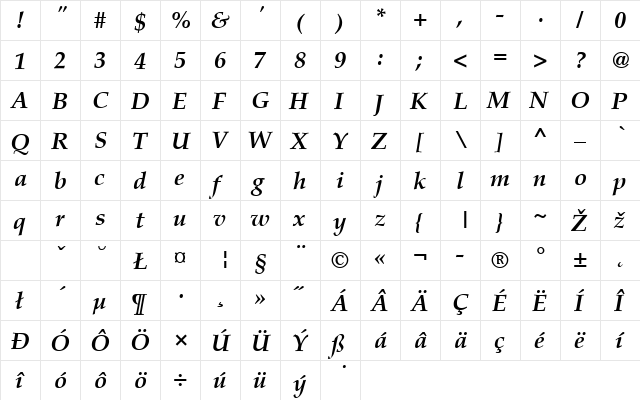
PaltusAntNo3LEE Bold Italic Font Preview
Design Context for PaltusAntNo3LEE Typeface
PaltusAntNo3LEE offers clean, dependable letterforms without strong stylistic allegiance, making it a practical choice for designers who need flexibility. Its italic angle brings a sense of urgency and motion to the letterforms. The heavy weight commands attention and anchors typographic hierarchies.
Pro Tip: Try PaltusAntNo3LEE for annotation and caption copy alongside an upright companion — the contrast in angle creates a dynamic but ordered typographic system.